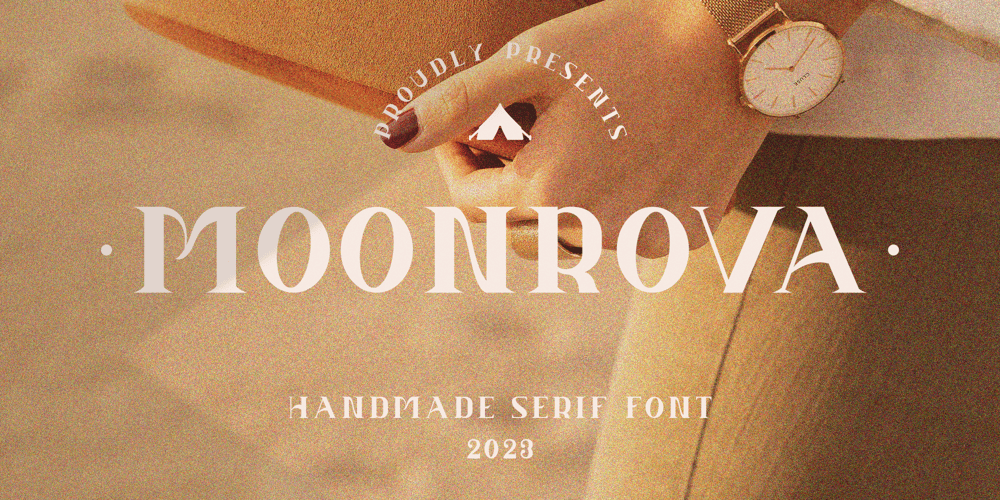
Moonrova Font Family was designed by Ahmad Riqi and published by Slide Shoot. Moonrova contains 1 styles and family package options. Moonrova Serif is a handmade serif font. He has a beautiful character. It fits perfectly with invitation card designs, company logos, movie titles, movie names, business cards, book titles, brand names and various other designs.FEATURE : Ligature Uppercase and lowercase Numbering and Punctuation Works on PC or Mac Simple Installation Supports Adobe Illustrator, Adobe Photoshop, Adobe InDesign, also works in Microsoft Word Hope you like itThank you.